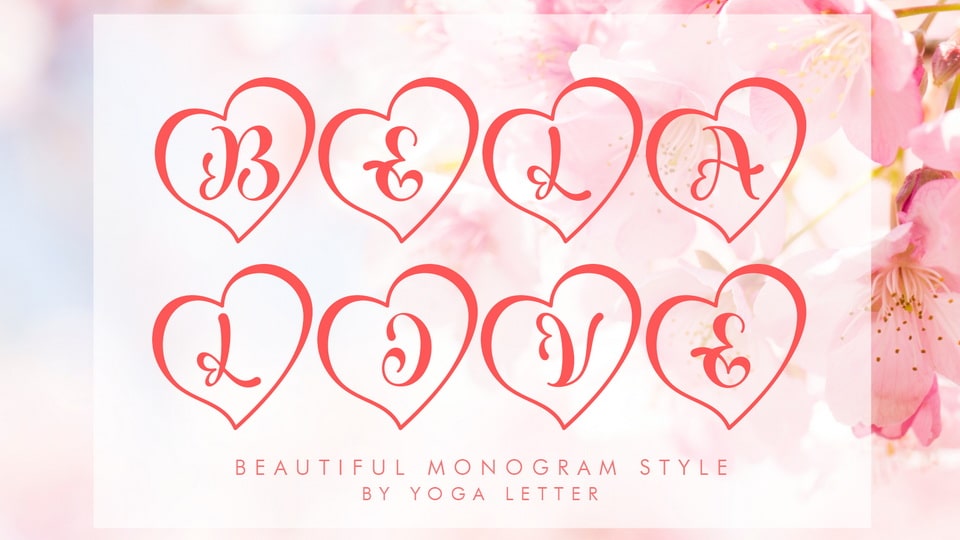
Download Bela Love font, a beautiful and cute monogram font with love shapes on each letter. Bela Love is perfect for Christmas greetings, wedding invitations, engagement invitations, logos.